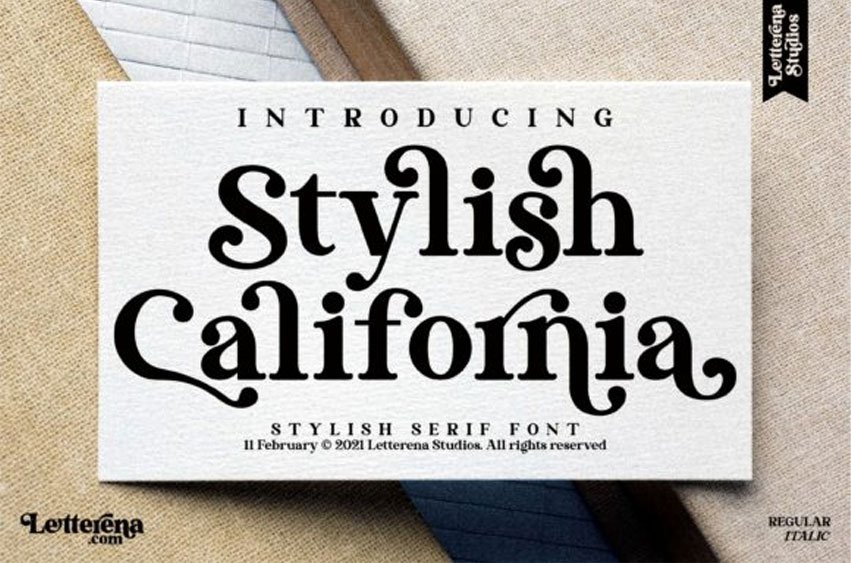
Stylish California Font is a cool, elegant and fashionable serif font.
Whether you’re using it for crafting, digital designing, presentations or greeting cards making, it’s perfect!